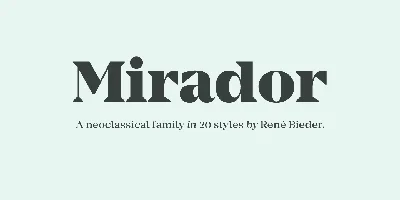
Mirador Font
With its sharp, geometric lines and balanced structure, Mirador Font offers a polished, sophisticated look. It’s ideal for logos, headlines, and digital graphics, providing clarity and style to your designs, making them both functional and aesthetically appealing.
Mirador Font supports multilingual characters, making it suitable for international projects and diverse audiences. Its legible and versatile design works well across both digital and print media, ensuring your content is always readable and visually attractive.